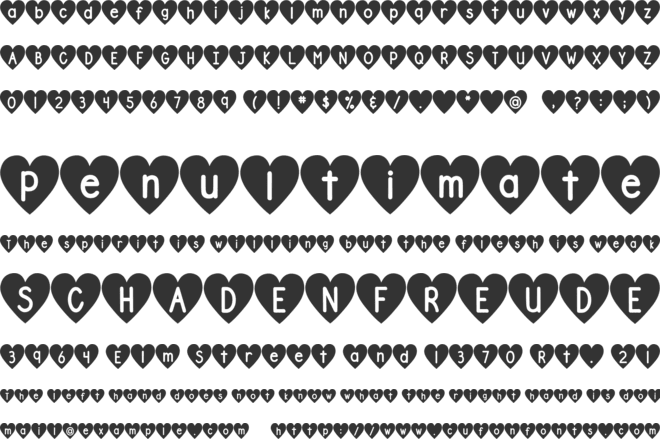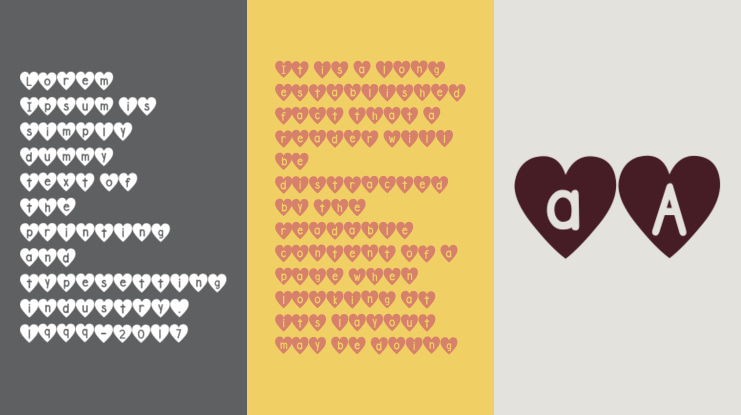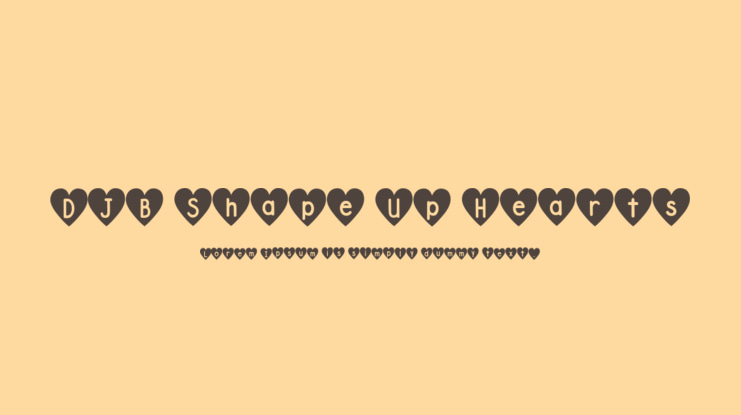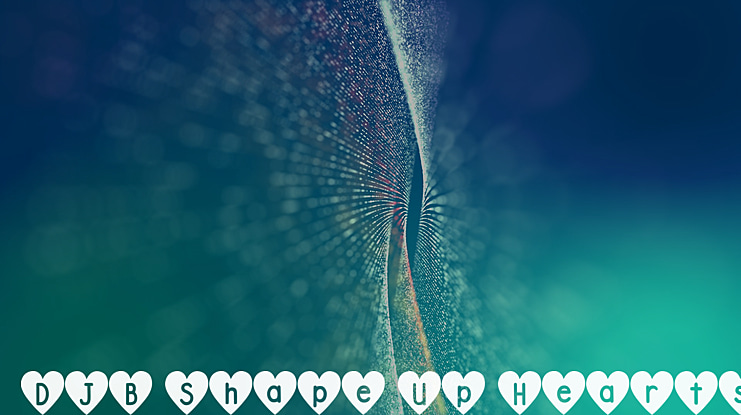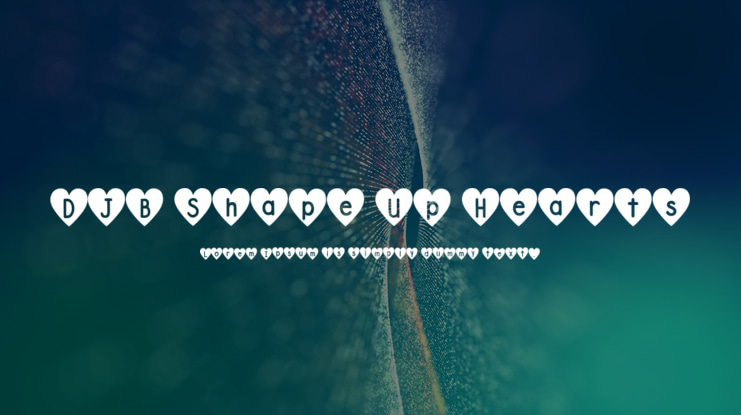
DJB Shape Up Hearts Font
Darcy Baldwin
DJB Shape Up Hearts is a conversational piece perfect for holidays and any time you want to share your love textually!